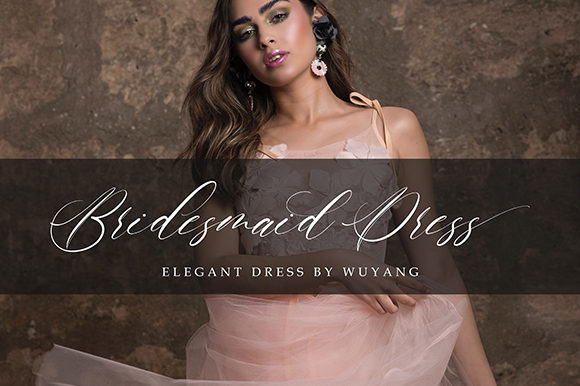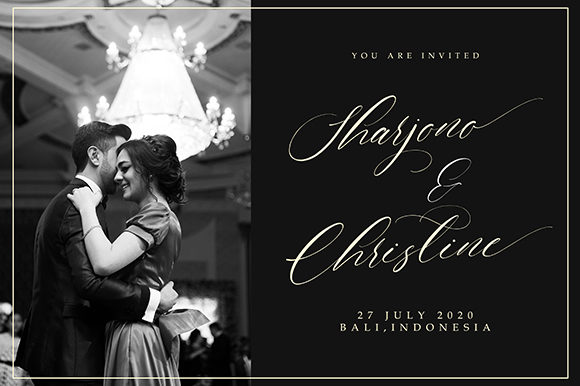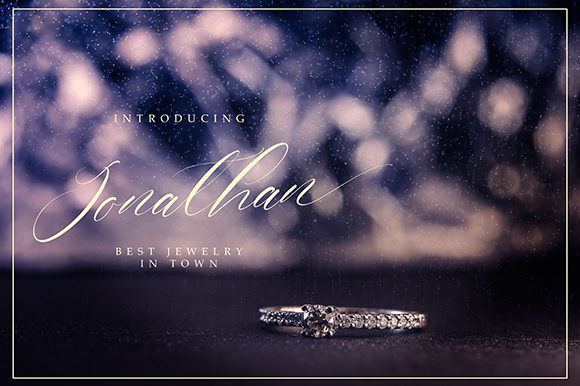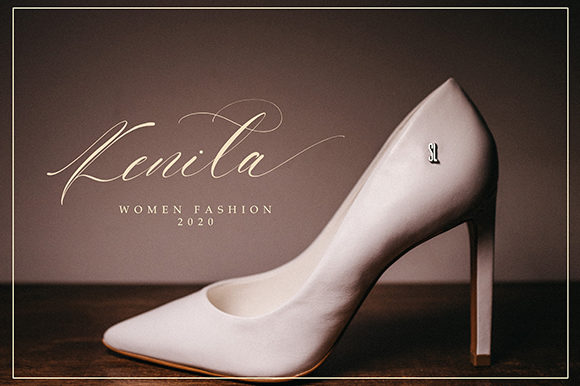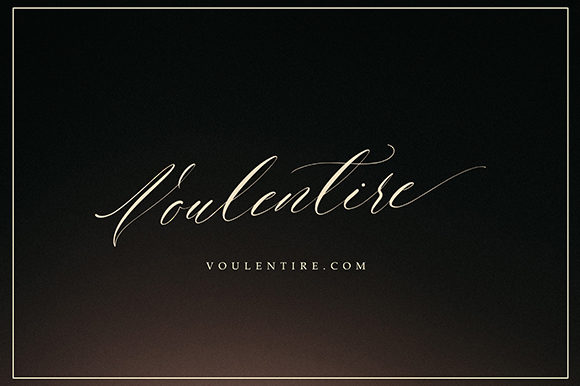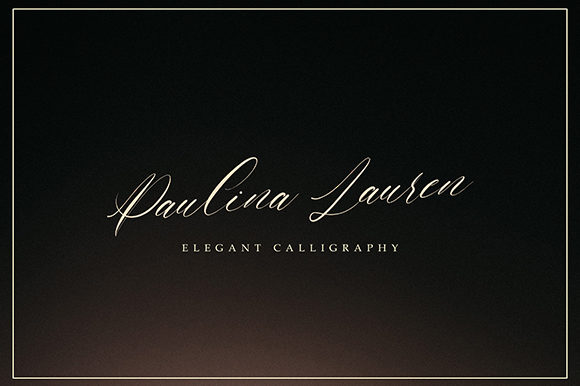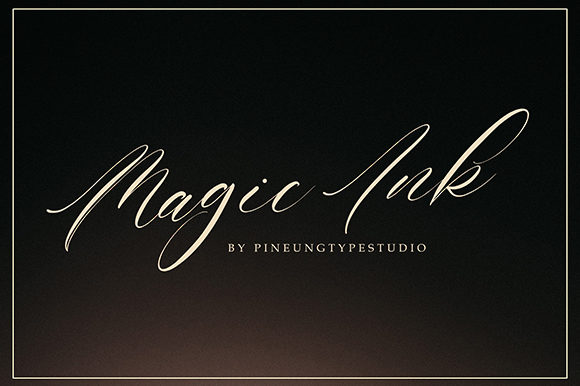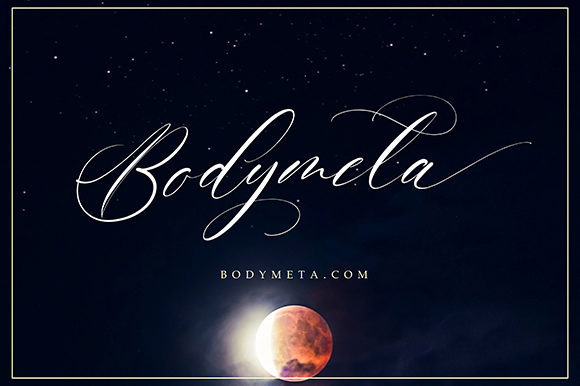
HomeScript FontsVoulentire Font Script Fonts Voulentire Font FacebookXPinterestWhatsApp Voulentire Font Poster 2 Voulentire Font Poster 3 Voulentire Font Poster 4 Voulentire Font Poster 5 Voulentire Font Poster 6 Voulentire Font Poster 7 Voulentire Font Poster 8 Voulentire Font Poster 9 About Voulentire Font Voulentire is a stunning script with bold swashes. Use it to add a touch of sophistication to any design project! DOWNLOAD ON CREATIVE FABRICAThis font is sold and delivered by Creative Fabrica. Font Canyon may earn a commission if you buy through this link. People also explored Wondertime Font Mantis! Font Natasya Font Astri Script Font Coming Font Walerina Font Acoustica Font Baby Cat Font South Font 378 0 TagsVoulentire Font Previous articleThe Sopher FontNext articleLemon Brush Font LEAVE A REPLY Cancel reply Comment: Please enter your comment! Name:* Please enter your name here Email:* You have entered an incorrect email address! Please enter your email address here Website: Save my name, email, and website in this browser for the next time I comment. Personal Use Free Mariyam Personal Use Free Read more about this font Husky Stash Personal Use Free Read more about this font Hunting Font Personal Use Free Read more about this font Underwood Champion Personal Use Free Read more about this font BLOG To increase your work productivity, choose the most readable fonts. In today's fast-paced work environment, where digital communication and information consumption are integral to our daily routines, the choice of fonts can significantly impact... Fonts That Capture the Spirit of New York City Top 10 Handwritten Fonts That Elevate Your Designs The 10 Best Handwriting Fonts to Add Personality to Your Designs